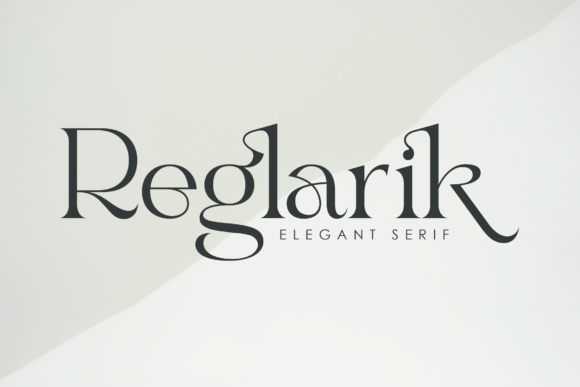
**Reglarik: A Masterpiece of Serif Elegance**
In a world saturated with digital information, where words dance across screens and vie for our attention, the choice of font becomes an art form. It's the subtle yet profound alchemy that transforms the mundane into the magnificent, the ordinary into the extraordinary.
Introducing Reglarik, the serif font that will awaken your creative spirit and elevate your designs to new heights. This modern masterpiece, crafted by the talented Denustudio, is a symphony of style and sophistication, a font that will captivate and enthrall your audience.
Its meticulously crafted characters possess a unique charm, an allure that draws the eye and compels it to linger. Each letterform is a work of art, a testament to the skill and dedication of its creator. The result is a font that exudes elegance and refinement, perfect for creating designs that resonate with timeless beauty.
With Reglarik, your words will sing and your message will soar. It's the perfect font for music posters, where the rhythm of the notes finds its visual echo in the graceful curves and sweeping lines of Reglarik.
*Imagine your poster, a visual symphony where Reglarik's characters dance in harmony with the melody, guiding the eyes of your audience on a journey of pure aesthetic delight.*
Or perhaps you're a lover of vintage charm, seeking a font that evokes the romance of a bygone era. Reglarik, with its nostalgic overtones and timeless appeal, will transport you to a world of classic elegance.
*Picture your wedding invitations, adorned with Reglarik's intricate details, whispering tales of love and commitment, leaving an indelible mark on the hearts of your guests.*
But Reglarik's versatility extends far beyond the realm of music and vintage aesthetics. It's a font that adapts effortlessly to a multitude of design projects, from sleek branding designs to eye-catching social media posts.
*Envision your brand logo, emblazoned with Reglarik's bold and distinctive characters, standing out from the crowd, leaving a lasting impression on potential customers.*
With Reglarik, the possibilities are limitless. Its PUA encoding ensures seamless access to a treasure trove of glyphs and ligatures, empowering you to create designs that are both visually captivating and functionally flawless.
So why settle for ordinary fonts when you can unleash the extraordinary with Reglarik? Embark on a creative journey where your designs take center stage, where your message resonates with power and grace.